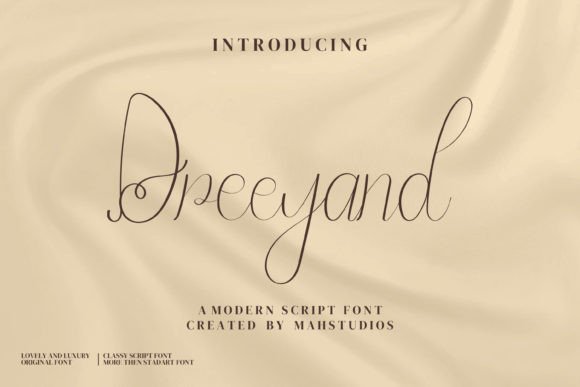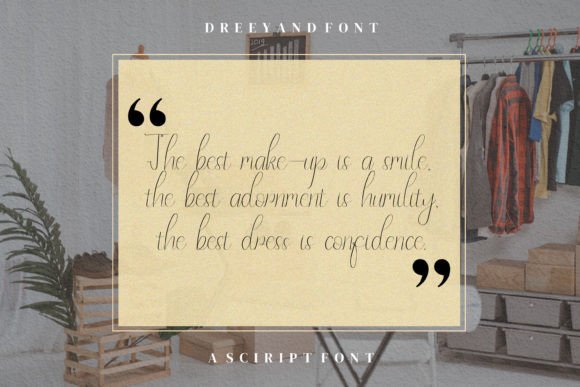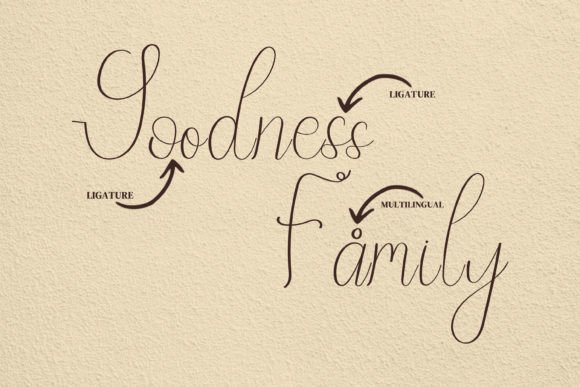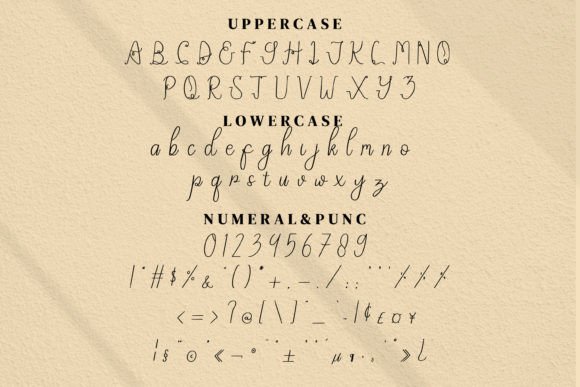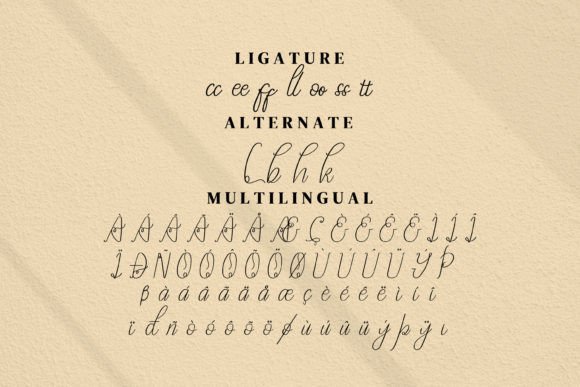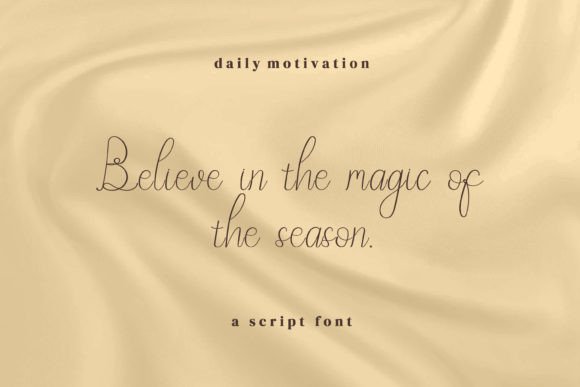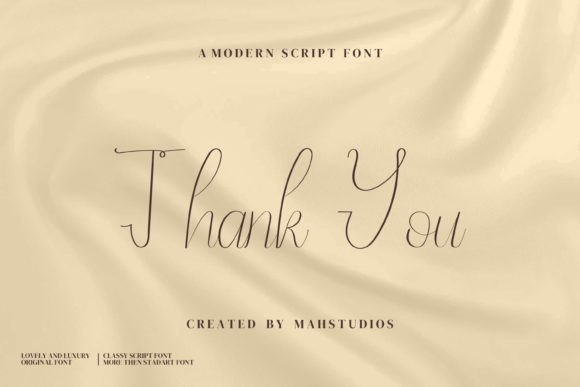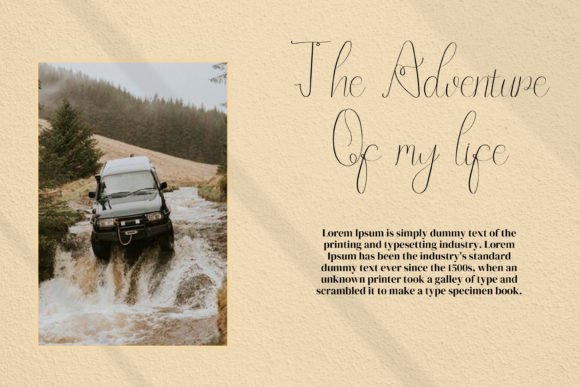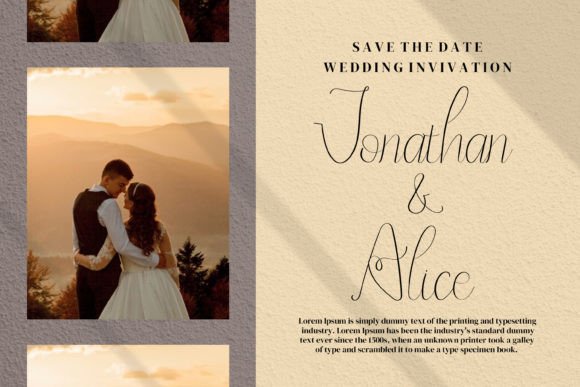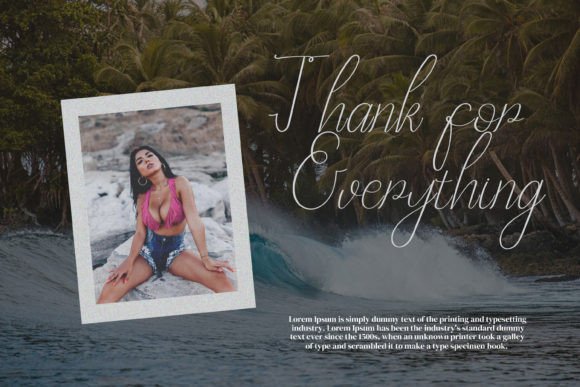
Dreeyand Font
What Is Dreeyand Font?
Dreeyand Font is a premium script typeface crafted to bring elegance and sophistication to any project. Each letter flows naturally, combining smooth curves with refined details that look polished and timeless. Because of its signature-inspired style, this font is perfect for designs that need a luxurious, handcrafted feel.
You will notice how easily Dreeyand adds class and personality to every visual creation.
Dreeyand is an incredibly versatile font suited for many applications. For example, it’s perfect for logos and branding. The stylish script helps your brand look high-end, professional, and memorable.
In addition, it works beautifully for packaging and product labels. Whether you design for beauty products, gourmet items, or handmade goods, Dreeyand makes every detail feel exclusive.
You can also use it for invitations, greeting cards, and event signage. The flowing signature look creates a warm and elegant atmosphere for weddings, galas, or celebrations.
When you create posters, social media graphics, or website banners, Dreeyand delivers a sophisticated tone that instantly attracts attention.
Moreover, it’s ideal for merchandise like mugs, t-shirts, tote bags, or book covers. Your designs will stand out and look premium every time.
Why Should You Choose Dreeyand Font?
There are many reasons to consider Dreeyand for your next project. First, it’s easy to read despite its elegant, flowing strokes. Whether used large or small, every letter stays clear.
Also, it pairs well with minimalist serif or sans-serif fonts. This allows you to build balanced, contemporary layouts effortlessly.
Because Dreeyand is fully PUA encoded, you can access all glyphs, alternates, and swashes without additional tools. This makes customizing your text simple and fast.
Designers love that Dreeyand looks polished right out of the box, saving time while delivering luxury results.
Dreeyand Font adds sophistication and refinement to every project. For example, when you want your designs to feel exclusive and elegant, this font makes it effortless.
Even minimalist layouts look more upscale with Dreeyand’s signature strokes. Whether you create branding, packaging, or event materials, your designs will stand out.
Using a premium script also demonstrates your commitment to quality and attention to detail. This builds trust with clients and leaves a lasting impression.
Dreeyand Font is more than just a typeface—it’s a creative asset that helps you share ideas with clarity and elegance. From logos and invitations to packaging and social media, this font adapts easily and elevates every design.